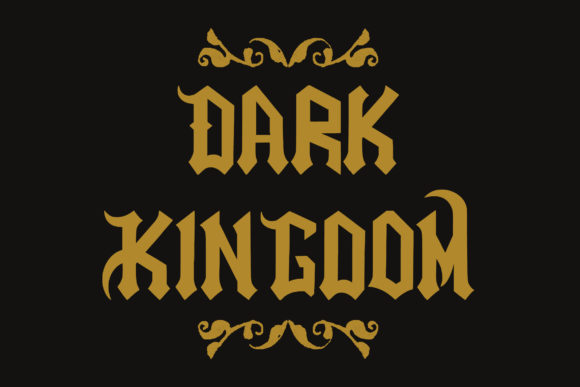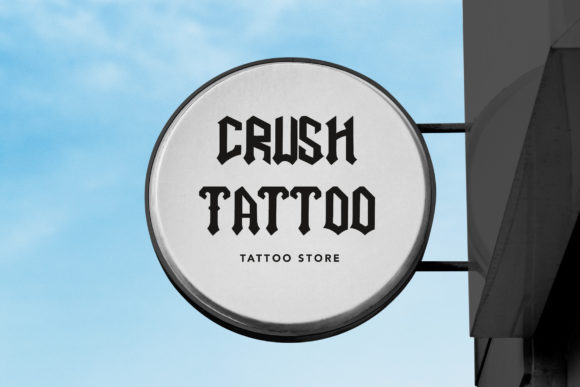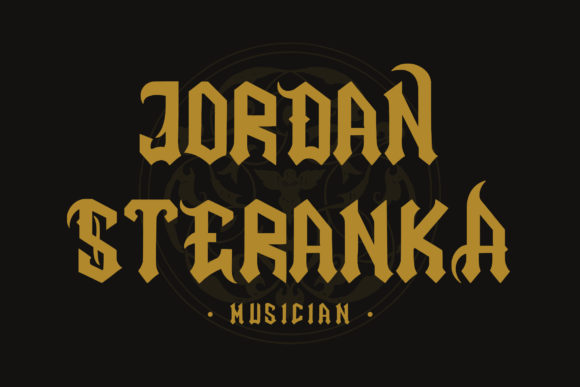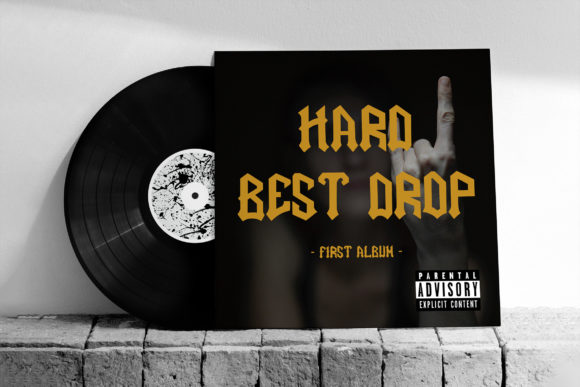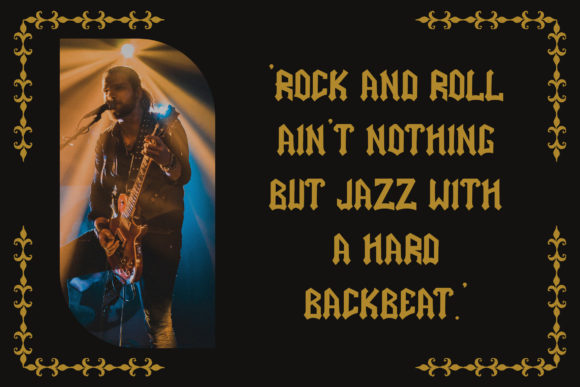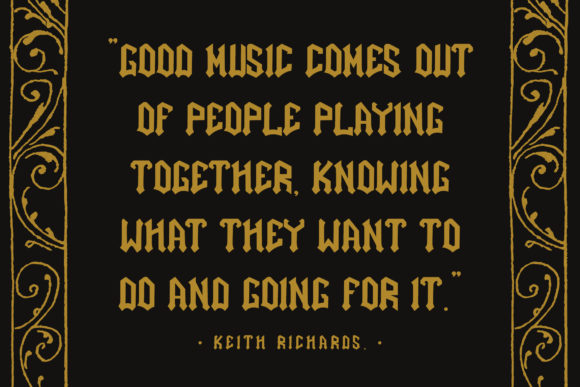
Unleash the Power of Fire Wisdom Font: A Gothic-Inspired Masterpiece
In the realm of typography, few fonts evoke the same level of mystery and intrigue as the Fire Wisdom Font. This stunning display font is a masterful blend of gothic and horror elements, making it the perfect addition to any design project that requires a touch of darkness and sophistication. In this article, we’ll delve into the unique features of Fire Wisdom – Blackletter Display Font and explore its potential applications for designers and crafters.
A Gothic and Horror-Inspired Masterpiece
Fire Wisdom Font is a true showstopper, boasting a unique shape that sets it apart from other fonts in its class. Its gothic and horror-inspired design makes it an ideal choice for projects that require a sense of mystery, drama, and even terror. Whether you’re working on a branding campaign, a horror movie poster, or a Gothic-themed wedding invitation, Fire Wisdom Font is sure to make a lasting impression.
One of the standout features of Fire Wisdom Font is its PUA (Private Use Area) encoding. This means that designers can access a wide range of glyphs and ligatures with ease, allowing for greater creative freedom and flexibility. With PUA encoding, you can effortlessly navigate the font’s extensive character set, incorporating intricate details and flourishes into your designs.
Fire Wisdom Font’s versatility is one of its greatest strengths. This display font can be used for a wide range of projects, including:
- Branding and logos: Create a lasting impression with a unique and memorable logo that showcases your brand’s personality.
- Posters and flyers: Add a touch of drama and intrigue to your promotional materials with Fire Wisdom Font’s bold and eye-catching design.
- Wedding and event invitations: Create a Gothic-inspired wedding invitation or event promotion that sets the tone for a sophisticated and unforgettable experience.
- Packaging and product design: Stand out on store shelves with packaging that incorporates Fire Wisdom Font’s distinctive style.
Tips for Working with Fire Wisdom Font
To get the most out of Fire Wisdom Font, here are a few design tips to keep in mind:
- Experiment with font sizes: Fire Wisdom Font’s unique design makes it suitable for a range of font sizes. Experiment with different sizes to find the perfect balance for your project.
- Play with color: The font’s bold design makes it perfect for bold and vibrant color schemes. Don’t be afraid to experiment with different hues and combinations.
- Mix and match with other fonts: Fire Wisdom Font pairs well with a range of other fonts. Try combining it with a sans-serif font for a striking contrast.
Fire Wisdom – Blackletter Display Font is a true masterpiece of typography, offering designers and crafters a unique and powerful tool for creating stunning designs. With its PUA encoding, gothic and horror-inspired design, and versatility, this font is sure to become a go-to choice for a wide range of projects. Whether you’re a seasoned designer or a crafty DIY enthusiast, Fire Wisdom Font is an excellent addition to your creative toolkit.